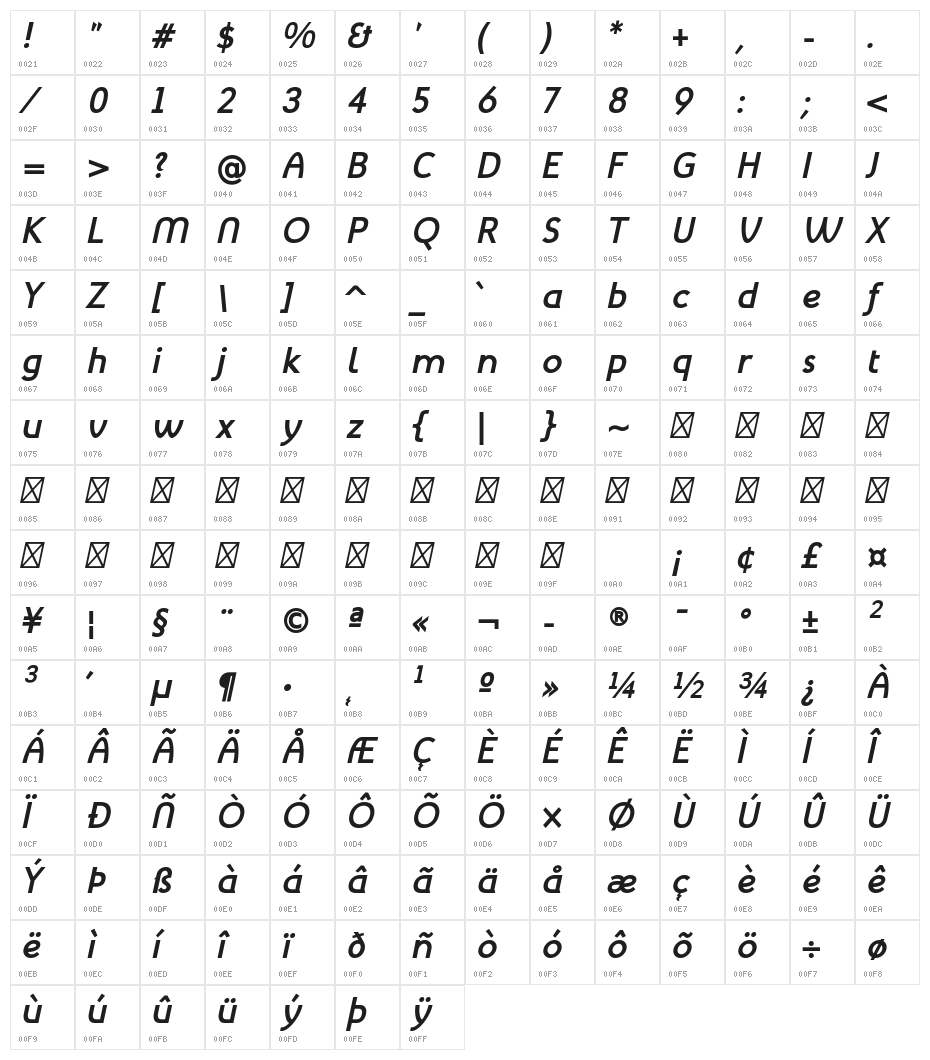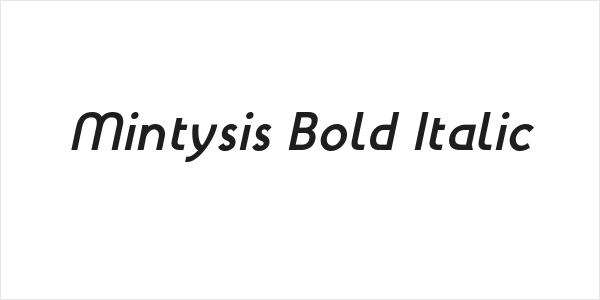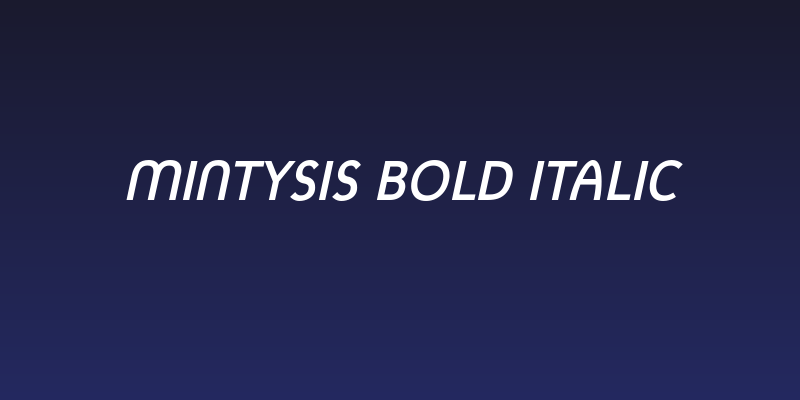
Mintysis Bold Italic Font
Mintysis Bold Italic Description
This font exhibits a modern and sleek design with a bold and italicized style. The characters are slightly slanted, giving a dynamic and forward-moving appearance. The strokes are consistent and smooth, providing a clean and professional look. The uppercase letters are well-proportioned, while the lowercase letters maintain a harmonious balance. The numerals are clear and easy to read, making them suitable for various applications. Special characters are distinct and well-integrated into the overall design, ensuring versatility in usage.
| Proposed Projects | Ideal for branding, advertising, and editorial design projects where a modern and bold statement is needed. |